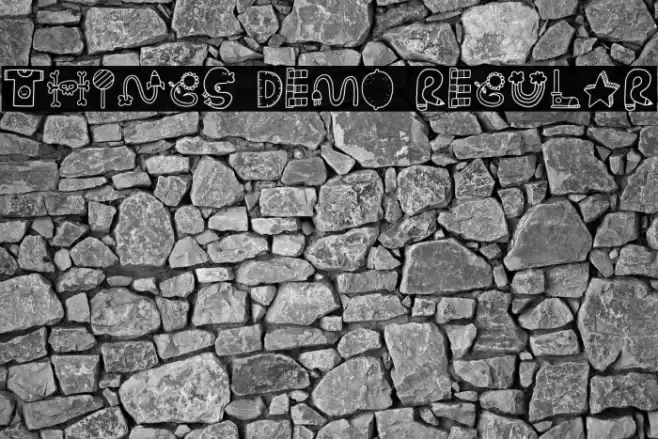
Things DEMO Regular Font
Things DEMO Regular Description
This playful and whimsical font features a unique design where each letter is represented by a distinct object or character, creating a fun and engaging visual experience. The uppercase letters are adorned with various elements such as stars, fruits, and animals, each contributing to a lively and imaginative theme. The lowercase letters continue this creative approach, maintaining a consistent style that is both decorative and illustrative. The numbers and special characters are similarly styled, ensuring a cohesive look across all characters. This font's intricate and detailed design makes it ideal for projects that require a touch of creativity and fun.
A whimsical and decorative font with each character represented by a unique object or character from Cartoon fonts.
- Proposed Projects: Ideal for children's books, playful branding, creative posters, and educational materials.
- Use Case: Logos, Posters, Creative Projects